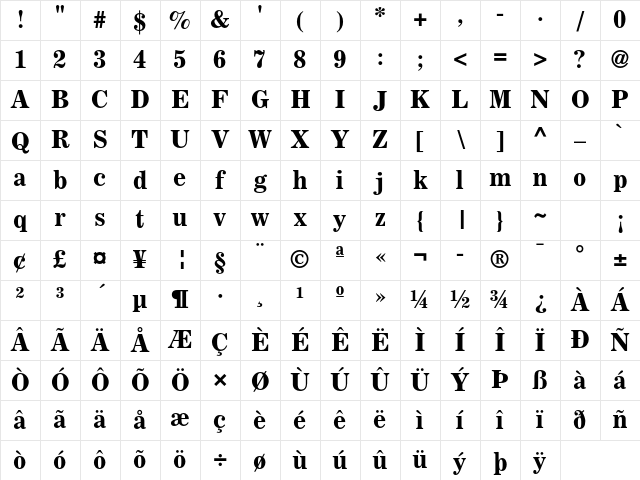
Complete Corona LT Std Bold Face No. 2 glyph index. Displaying only characters natively supported by Corona LT Std Bold Face No. 2 font.
Corona LT Std is a composed and adaptable typeface that performs quietly and consistently across a wide range of design contexts. Its bold stroke weight gives it real presence on the page.